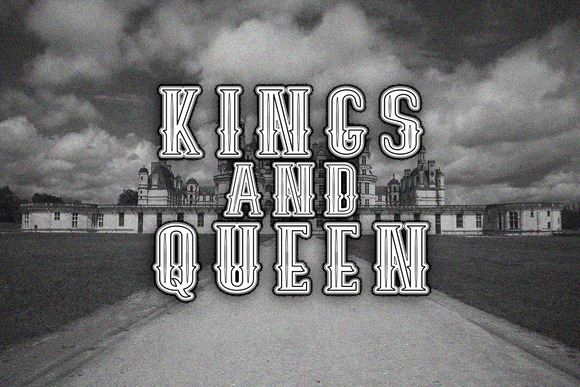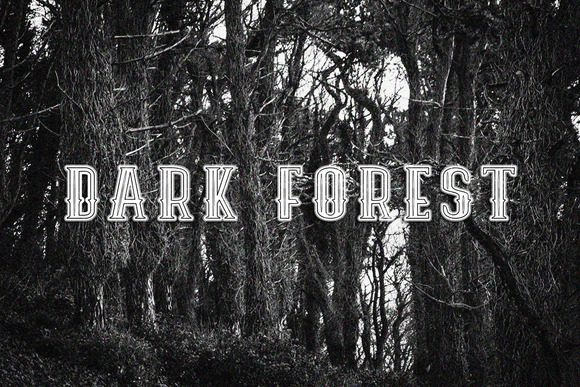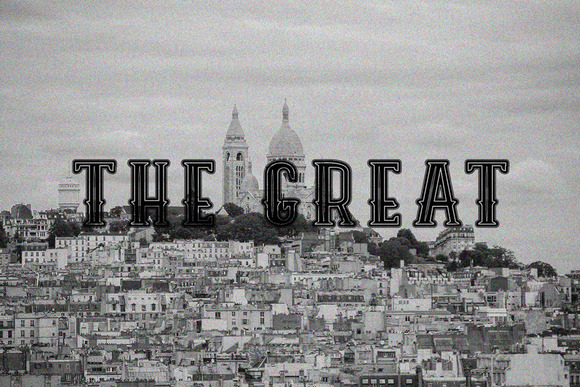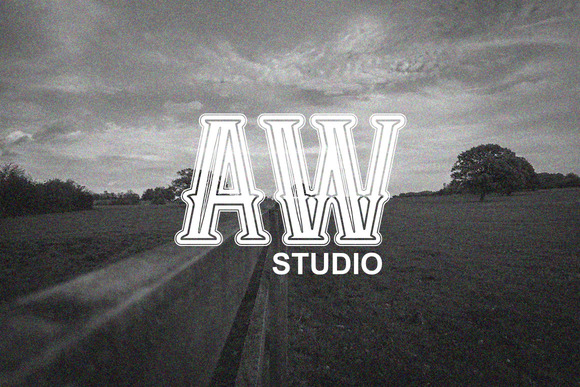
Introducing Elpida Vintage Font: Elevate Your Designs with a Touch of Nostalgia
In the world of design, fonts play a crucial role in conveying the tone and aesthetic of a project. For those seeking to infuse their creations with a vintage or retro vibe, the right font can make all the difference. This is where Elpida Vintage Font comes into play – a stunning, bold display font designed to add a touch of authenticity to your designs.
The Charm of Elpida Vintage Font
Elpida is a beautiful, bold vintage display font that instantly captures attention. Its unique design elements and classic feel make it an ideal choice for designers and crafters looking to give their projects a nostalgic appeal. Whether you’re working on a branding project, packaging, or marketing materials, Elpida has the potential to elevate your designs and make them stand out.
Key Features of Elpida Vintage Font
- Bold and Beautiful: Elpida boasts a bold and beautiful design that’s sure to make a statement in any project.
- Vintage/Retro Style: With its classic feel and nostalgic appeal, Elpida is perfect for designs that require a vintage or retro touch.
- High Versatility: This font can be used across various design projects, including branding, packaging, posters, and more.
- Easy to Read: Despite its bold nature, Elpida remains easy to read, making it functional as well as visually appealing.
Uses of Elpida Vintage Font
The versatility of Elpida Vintage Font makes it suitable for a wide range of design projects. Here are some of the ways you can use Elpida to enhance your designs:
- Branding and Logos: Create memorable brand identities with Elpida’s distinctive vintage charm.
- Marketing Materials: Use Elpida in brochures, flyers, and posters to grab attention and evoke a sense of nostalgia.
- Packaging Design: Add a vintage touch to product packaging to make it stand out on store shelves.
- Social Media Graphics: Incorporate Elpida into your social media graphics to give them a unique and engaging look.
Elpida Vintage Font is a powerful tool for designers and crafters looking to add a vintage or retro touch to their projects. Its bold, beautiful design and classic feel make it an excellent choice for a wide range of applications. By incorporating Elpida into your designs, you can create visually stunning and authentic pieces that capture the essence of nostalgia. So, why wait? Explore the possibilities of Elpida Vintage Font today and take your designs to the next level.